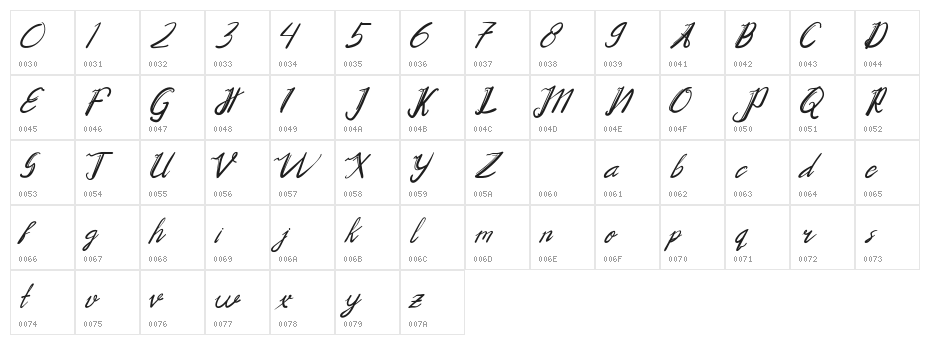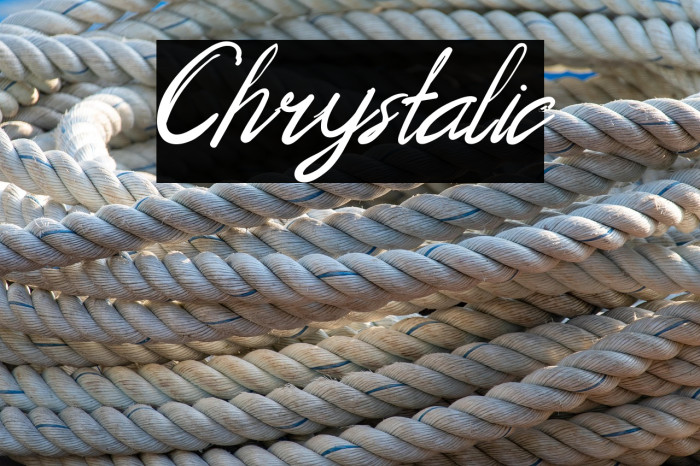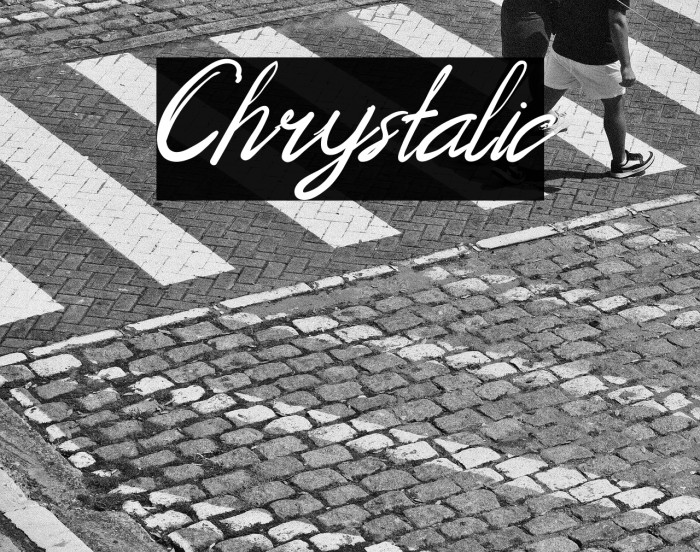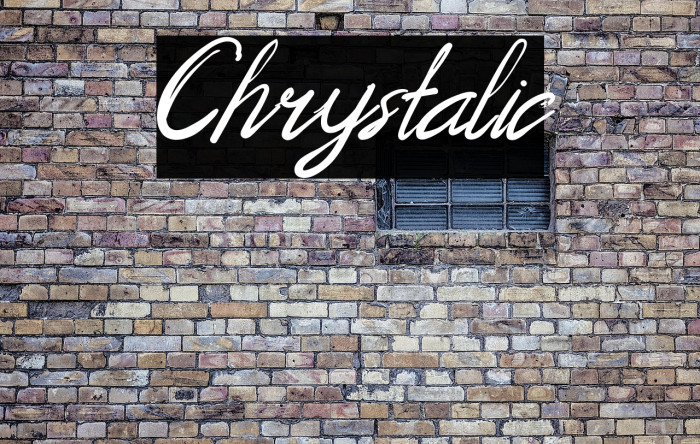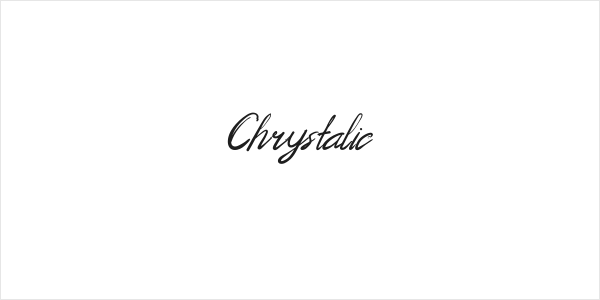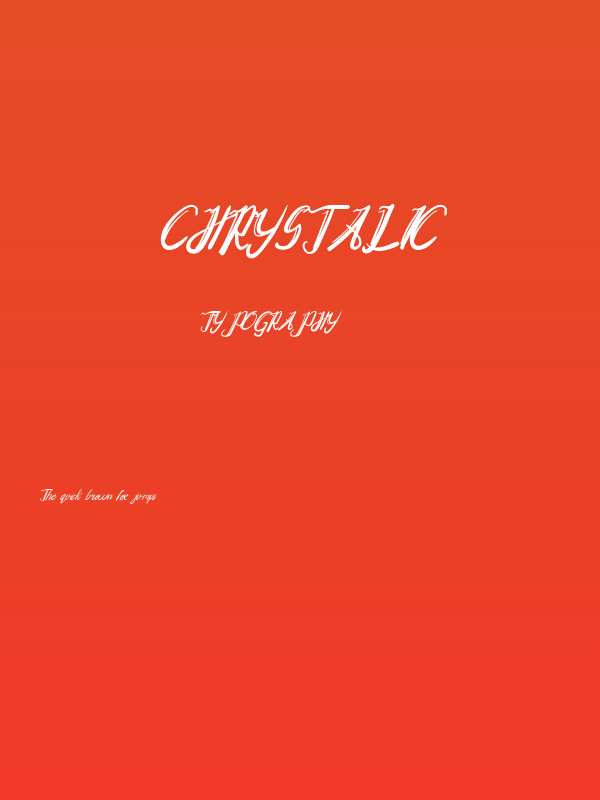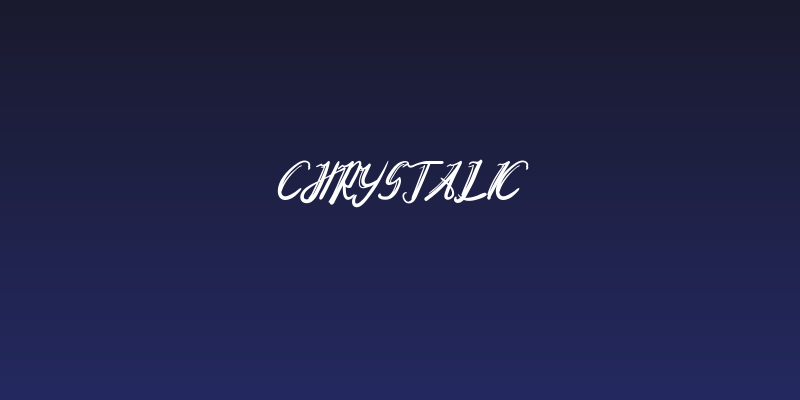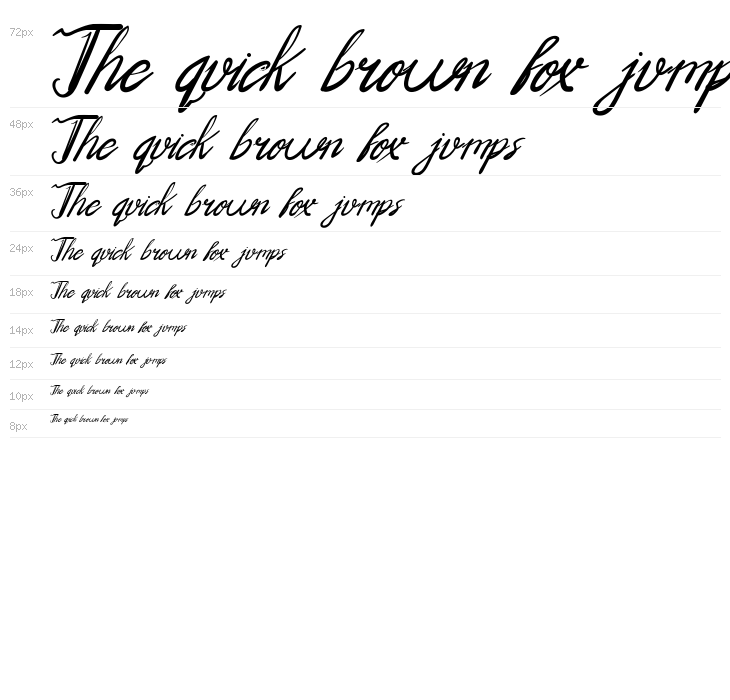
Chrystalic Font
Chrystalic Description
This elegant script font features a fluid and dynamic style, characterized by its sweeping curves and intricate details. The uppercase letters are bold and dramatic, with elongated strokes that give a sense of movement and grace. The lowercase letters maintain a consistent flow, complementing the uppercase with their delicate and refined appearance. Numbers and special characters are crafted with the same attention to detail, ensuring a cohesive look across all elements. The font's overall aesthetic is sophisticated and artistic, making it ideal for projects that require a touch of elegance and creativity.
| Overall Style | Elegant |
| Use Case | Logos, Invitations, Decorative text |
| Proposed Projects | Ideal for wedding invitations, elegant branding, artistic posters, and luxury product packaging. |